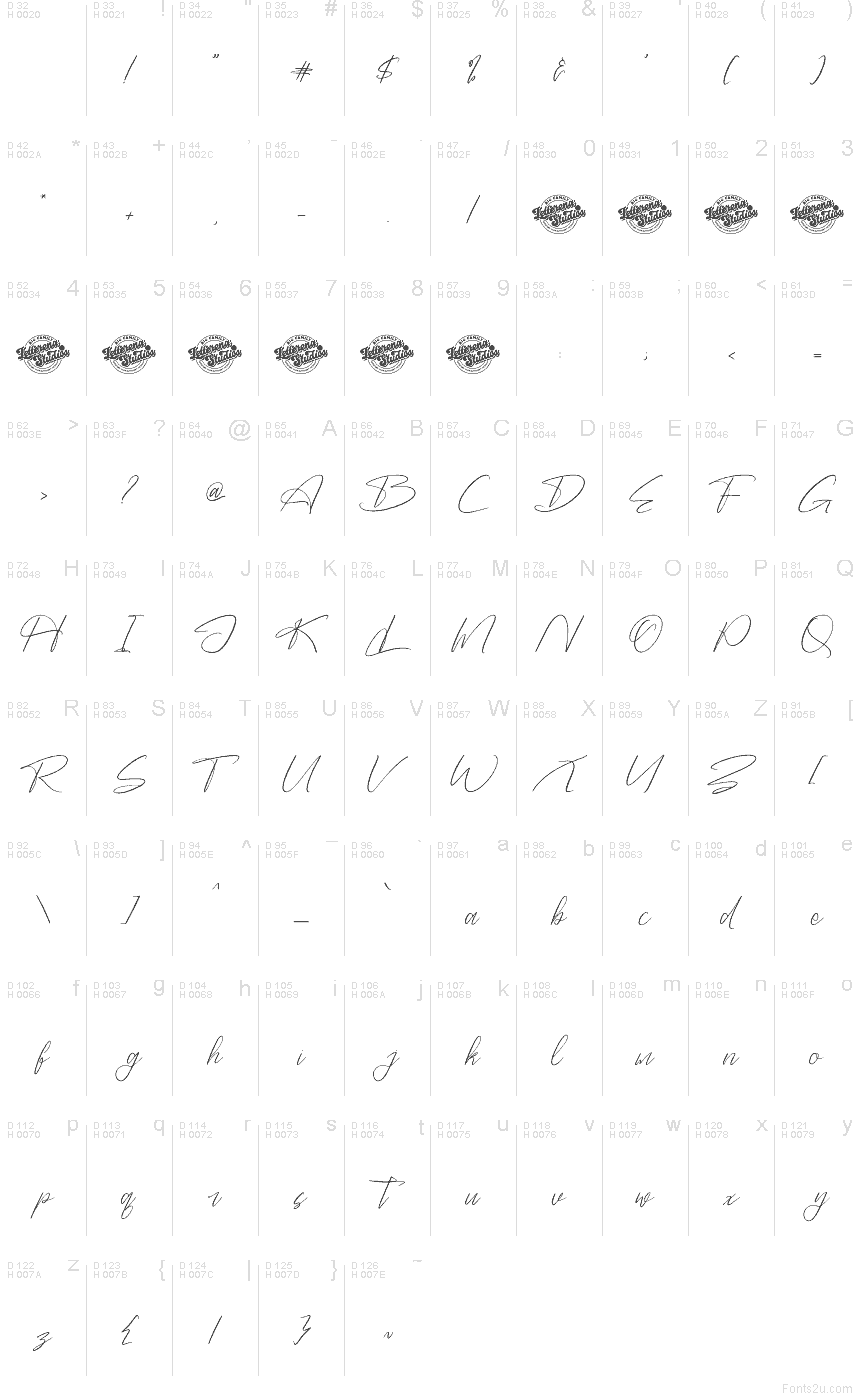
Danymeka DEMO VERSION
Danymeka font by Letterena Studios is a free handwritten script typeface with the airy grace of a quick, confident signature. Its long, sweeping curves and delicate, hairline strokes feel like ink skimming lightly across smooth paper, giving names, phrases, and short quotes a personal, almost whispered presence. The rhythm is fluid but not messy, so it reads clearly while still feeling utterly romantic and intimate.
Using Danymeka, wedding stationery, save-the-dates, boutique logos, product labels, invitation suites, social media quotes, and elegant packaging get an instant shot of refined handwriting charm. This free font shines when used large for names or key phrases, paired with a clean sans serif for supporting text to keep everything balanced and readable.